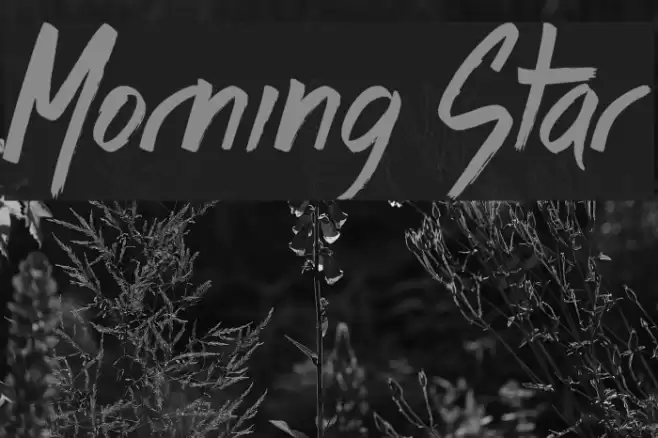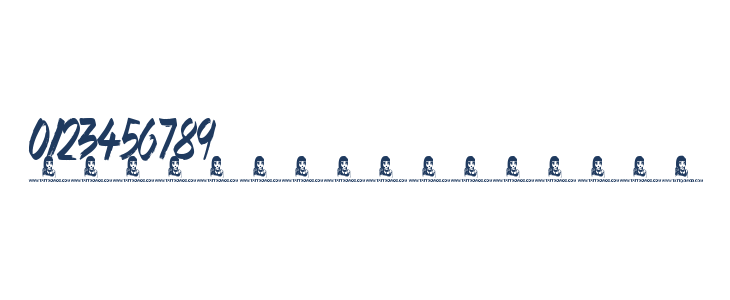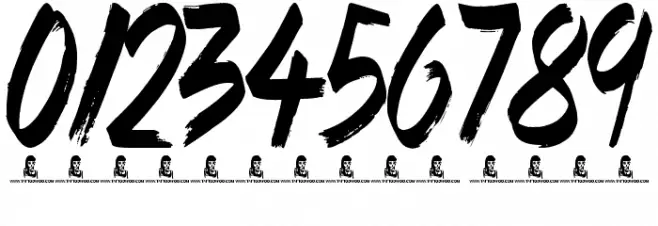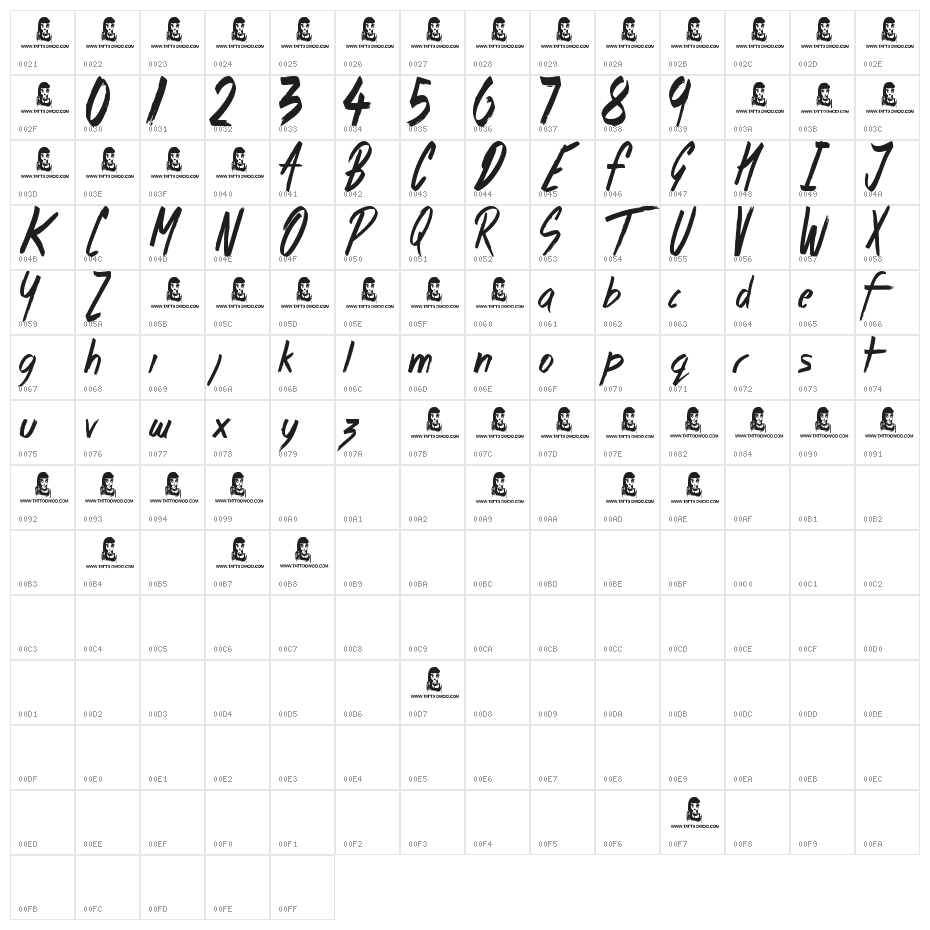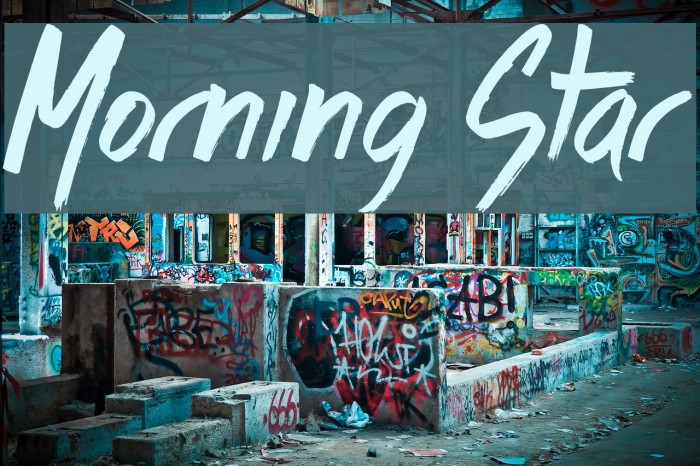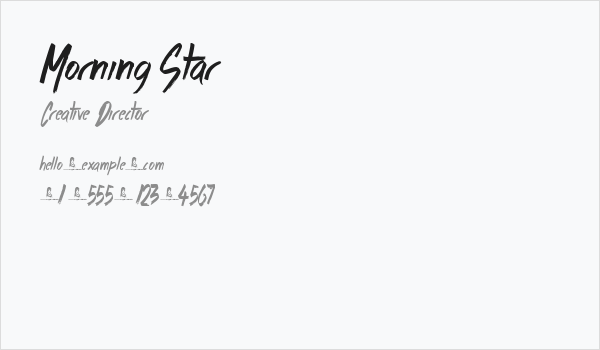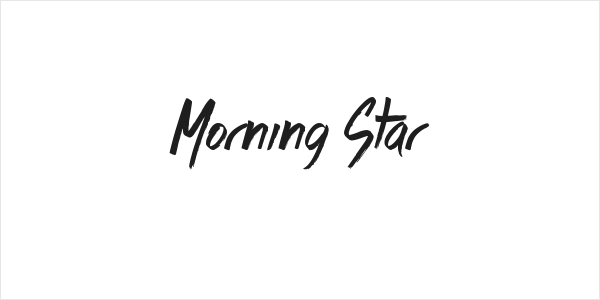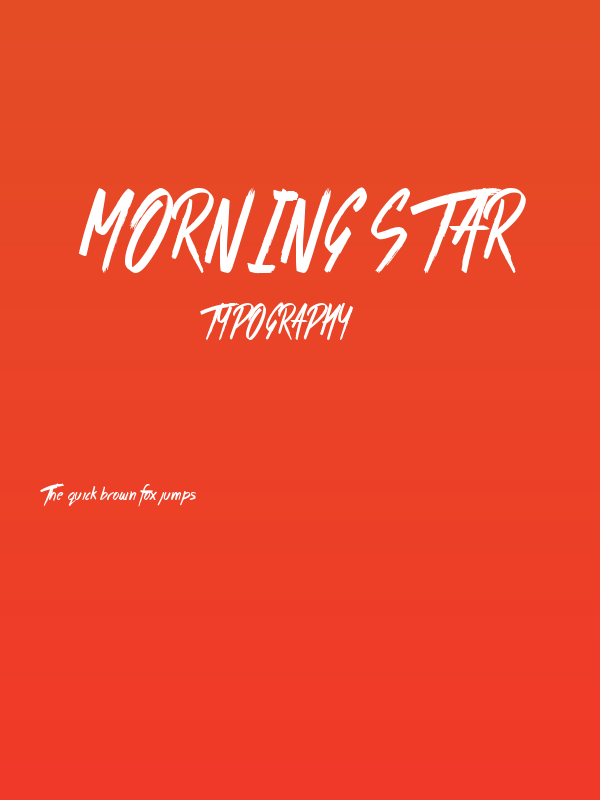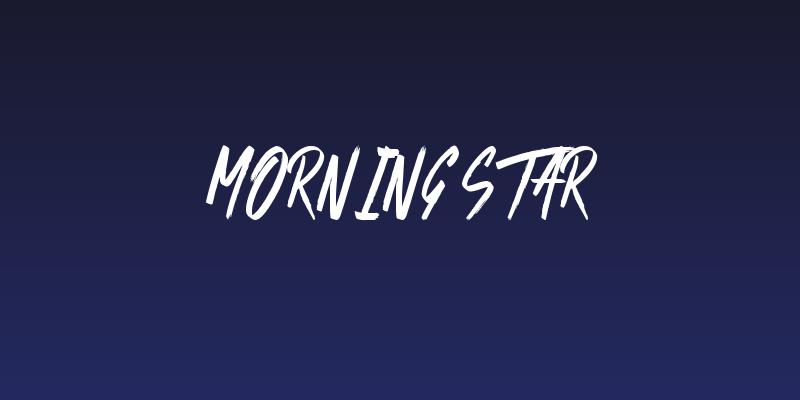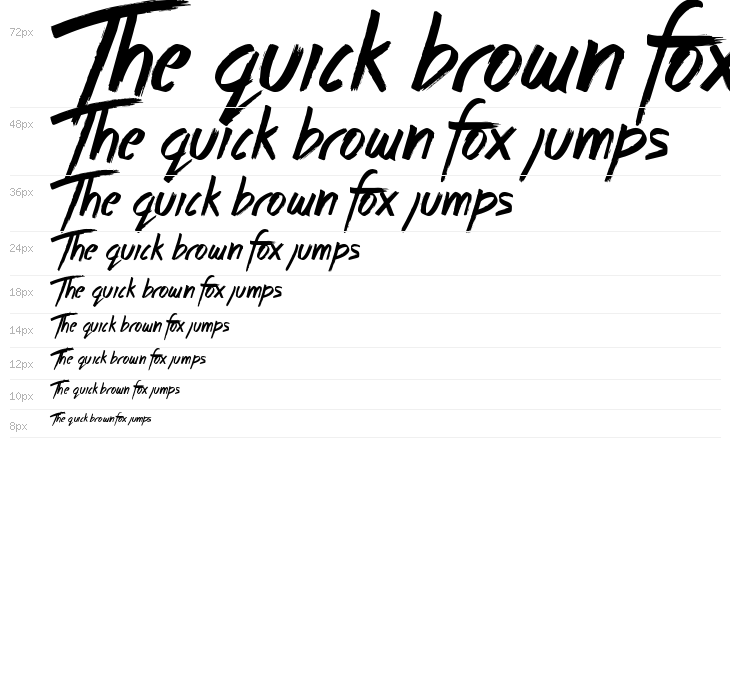
Morning Star Font
Morning Star Description
This font features a bold and expressive brush script style, characterized by its dynamic and energetic strokes. The letters have a hand-painted appearance, with varying thickness that adds a sense of movement and flair. The uppercase and lowercase letters are designed with a casual yet impactful aesthetic, making them stand out in any design. The numbers and special characters maintain the same lively and artistic feel, ensuring consistency across all elements. This font is perfect for projects that require a personal touch or a bold statement.
- Proposed Projects: Ideal for branding, posters, album covers, and any design needing a bold, artistic touch.